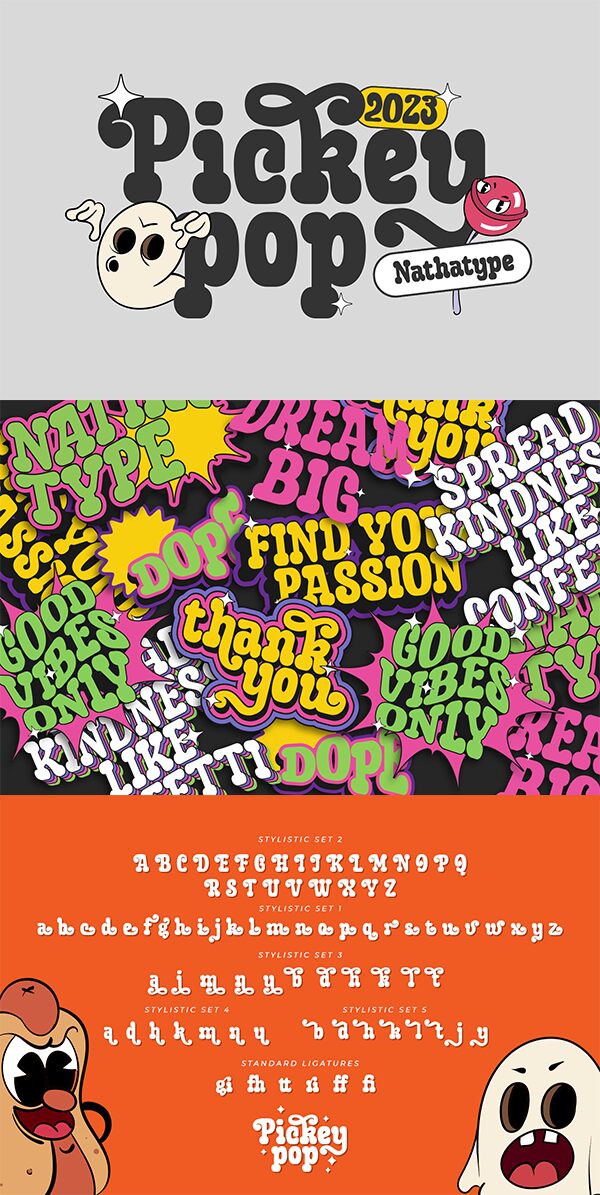
Pickey Pop font by Nathatype is a free groovy display font with a playful and quirky appearance. The condensed letters are bold, rounded, retro, and bubbly which gives it a cheerful outlook. But the seemingly carefree spirit couples with an artistic design that results in this unique typography.
Include Pickey Pop in your children’s books, chalkboards, menus, cartoons posters, newsletters, or book covers. Spice up your brochures and sales campaigns as well whether you work digitally on screen or opt for print use cases.